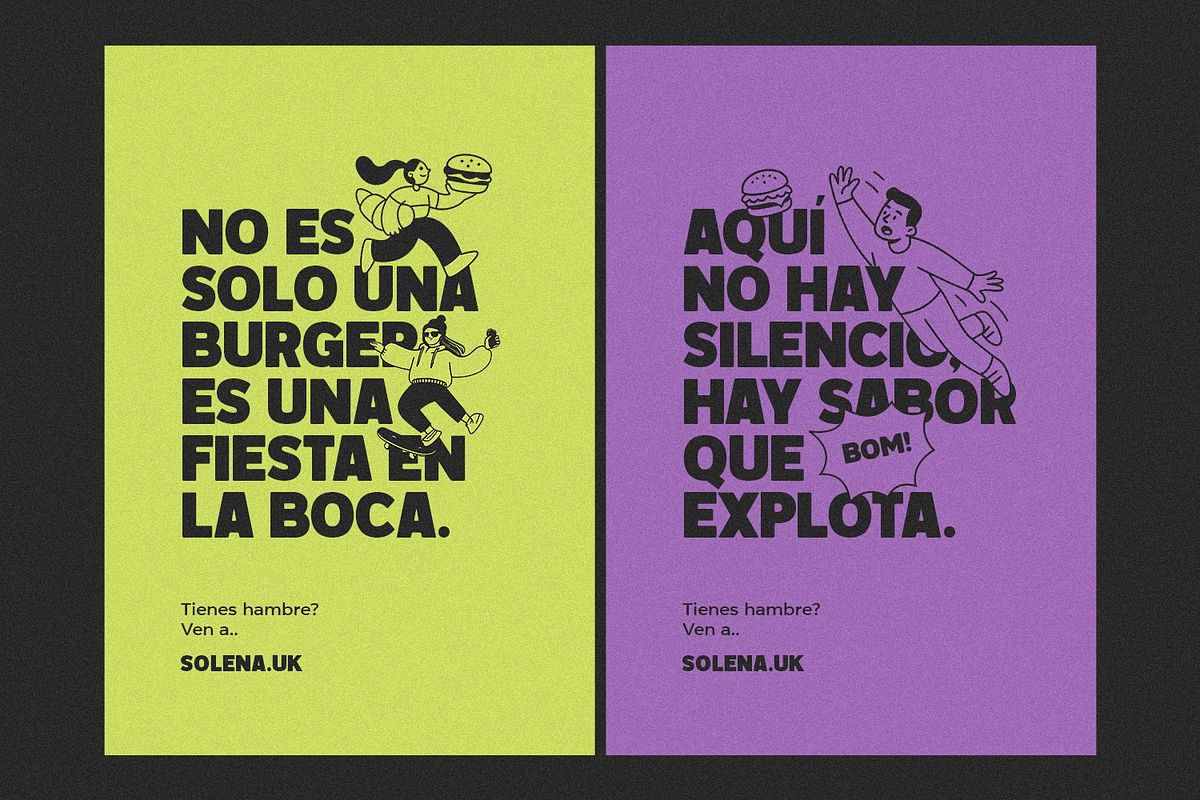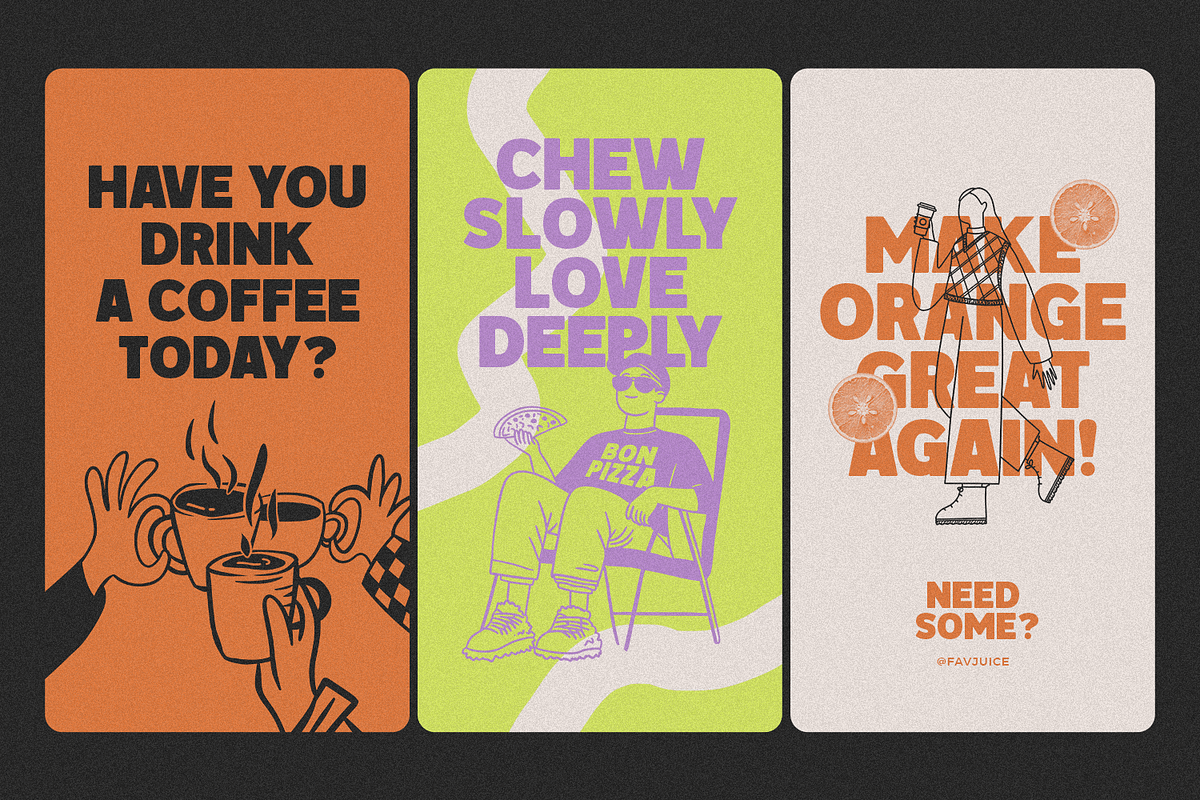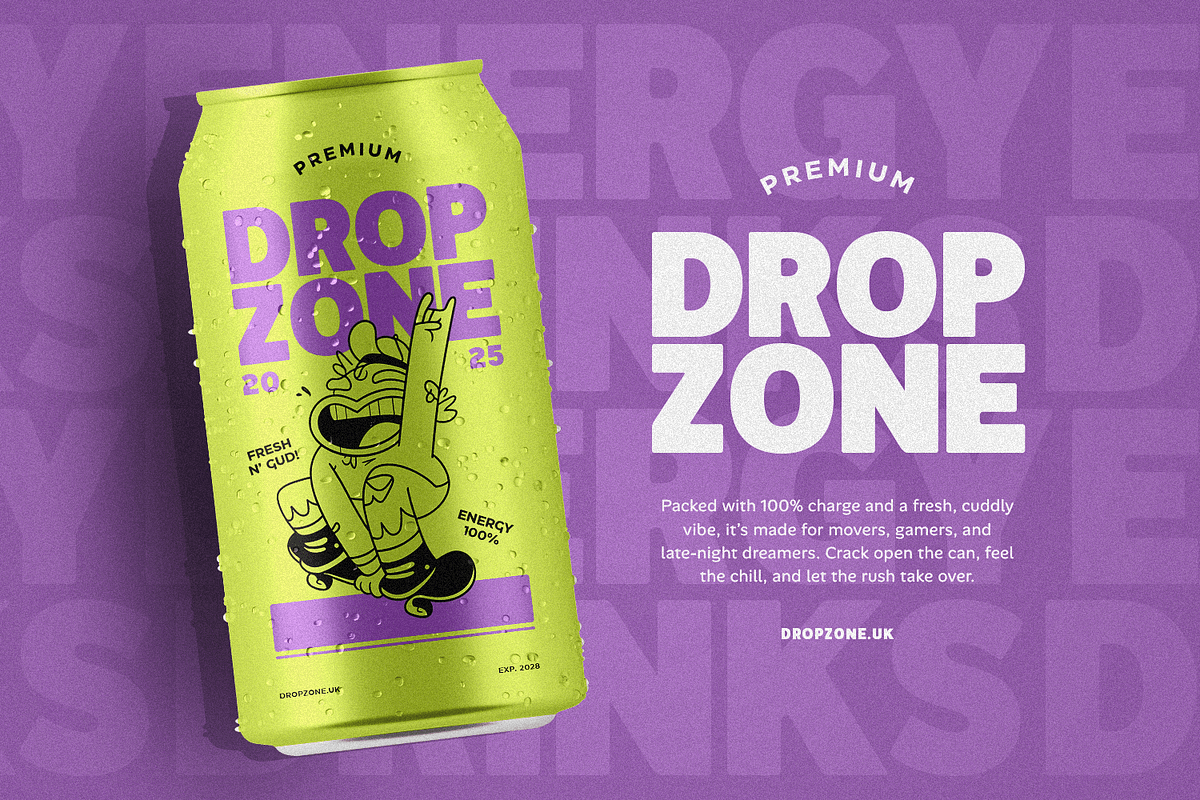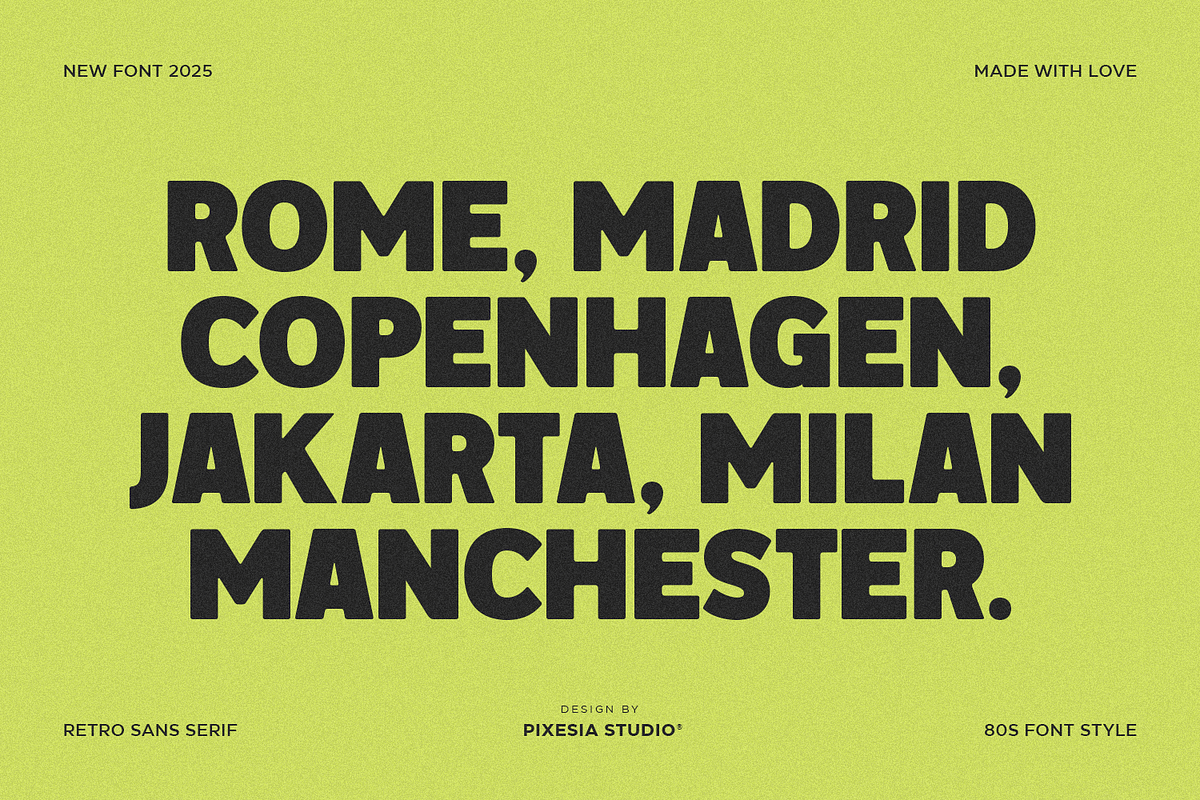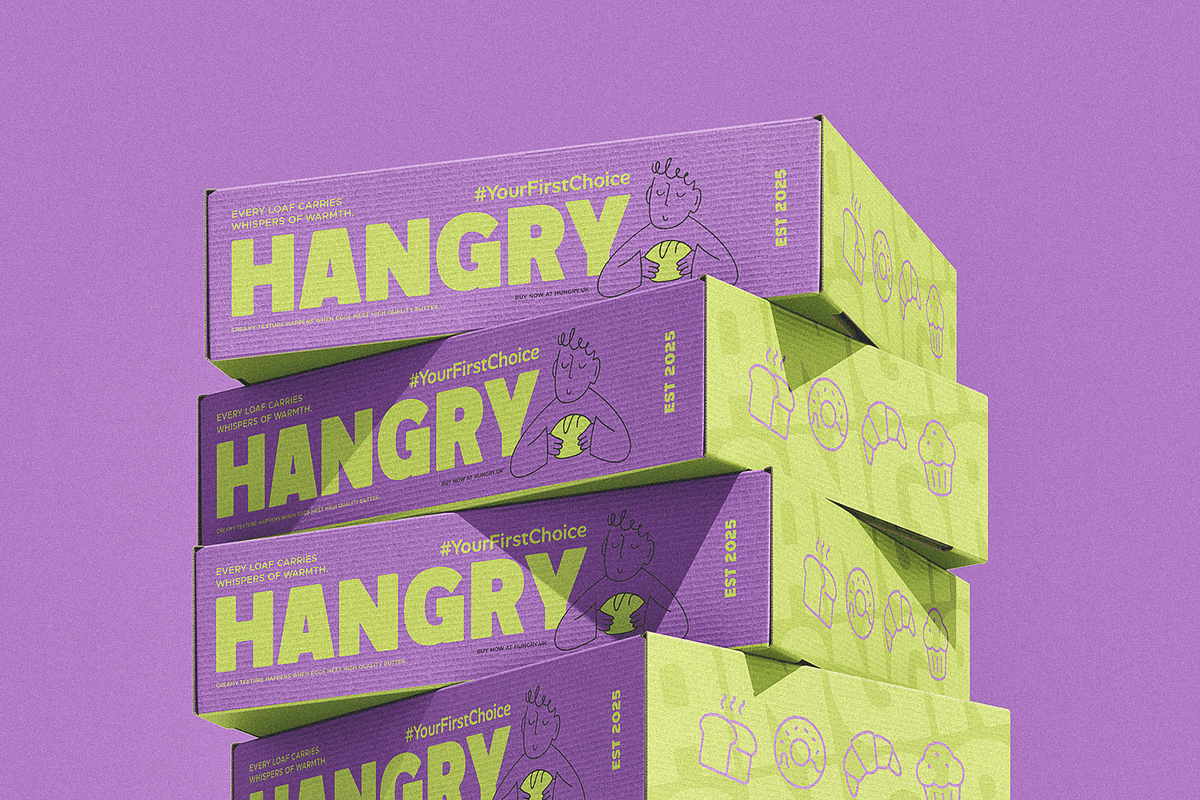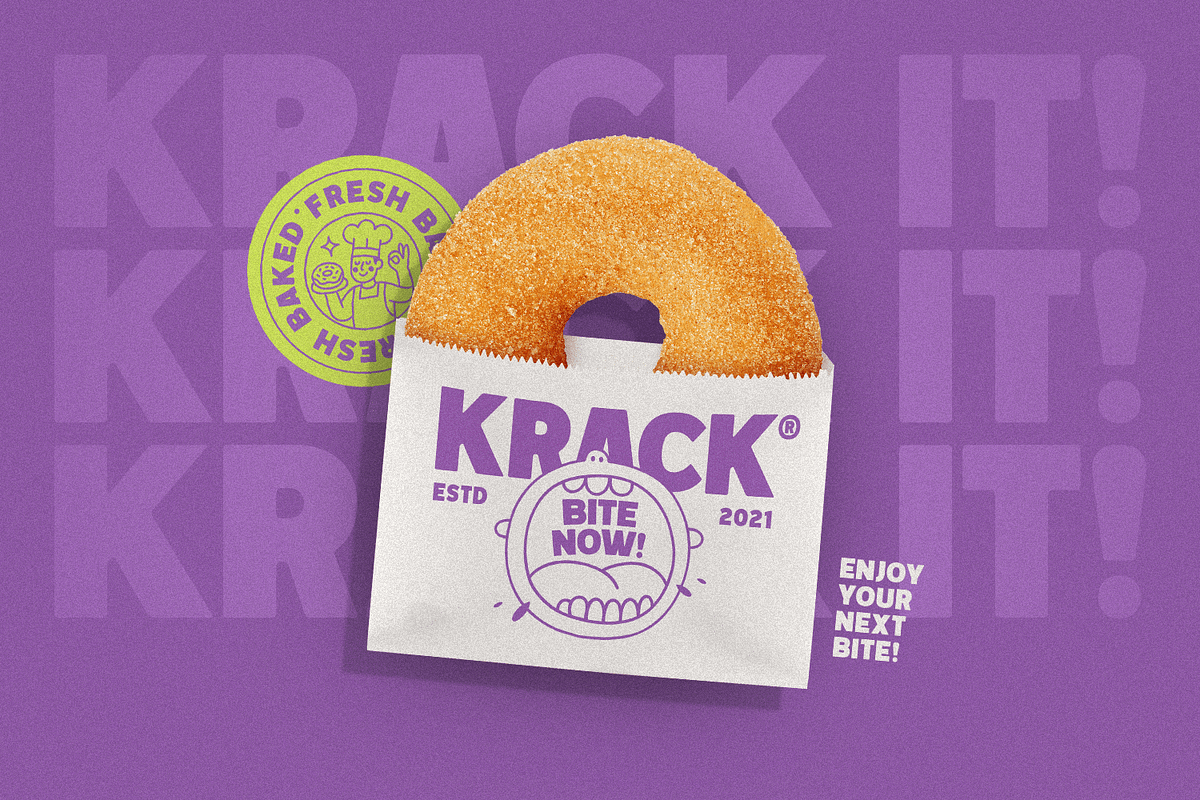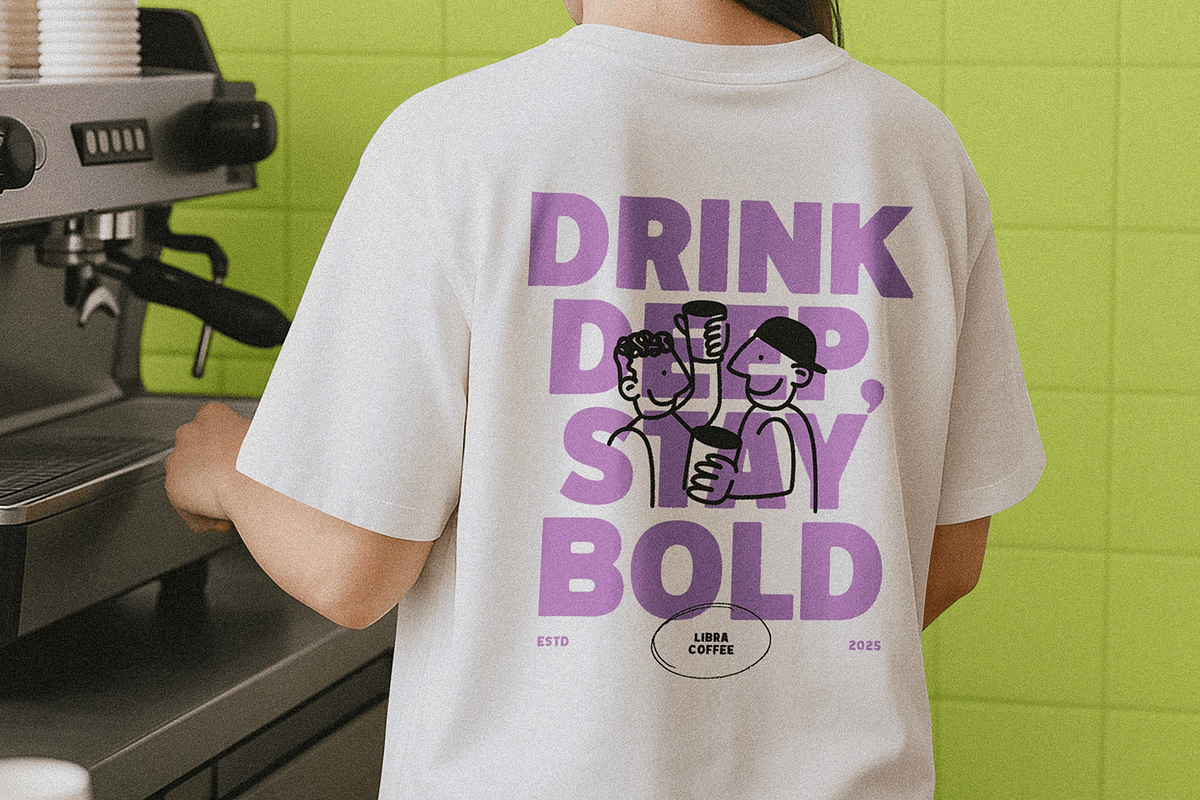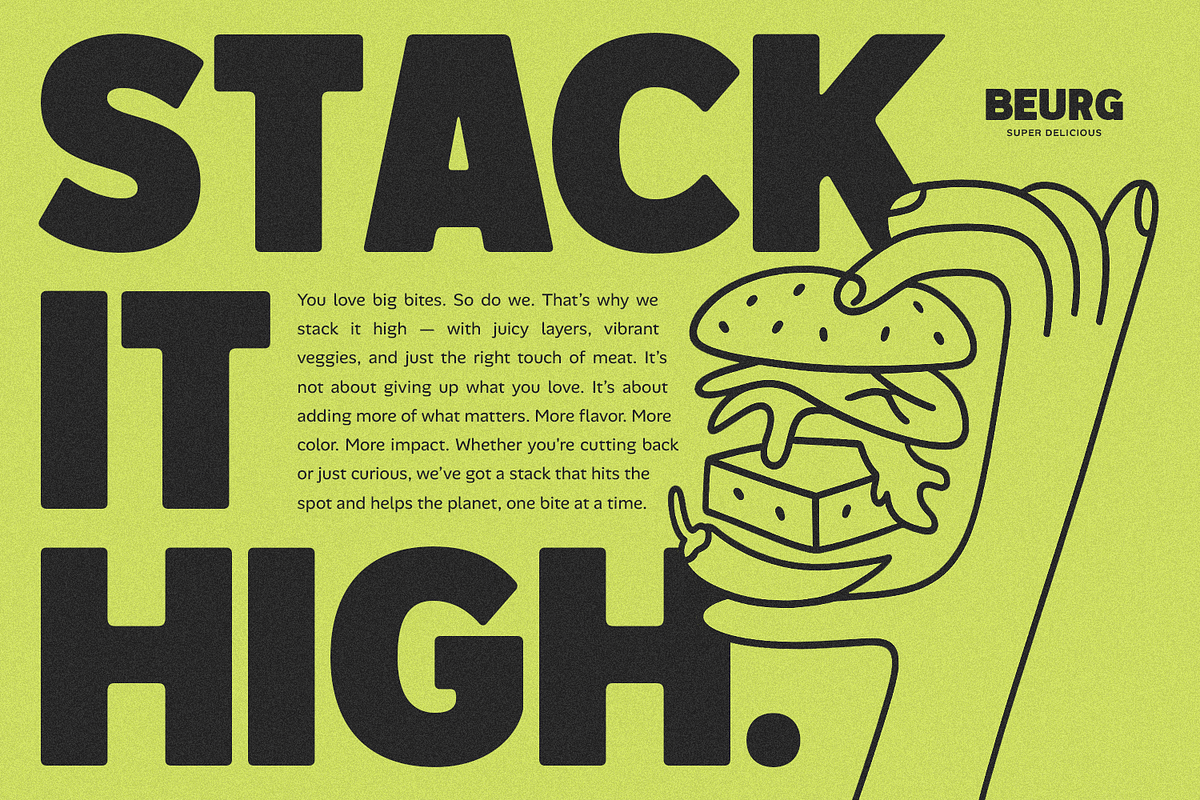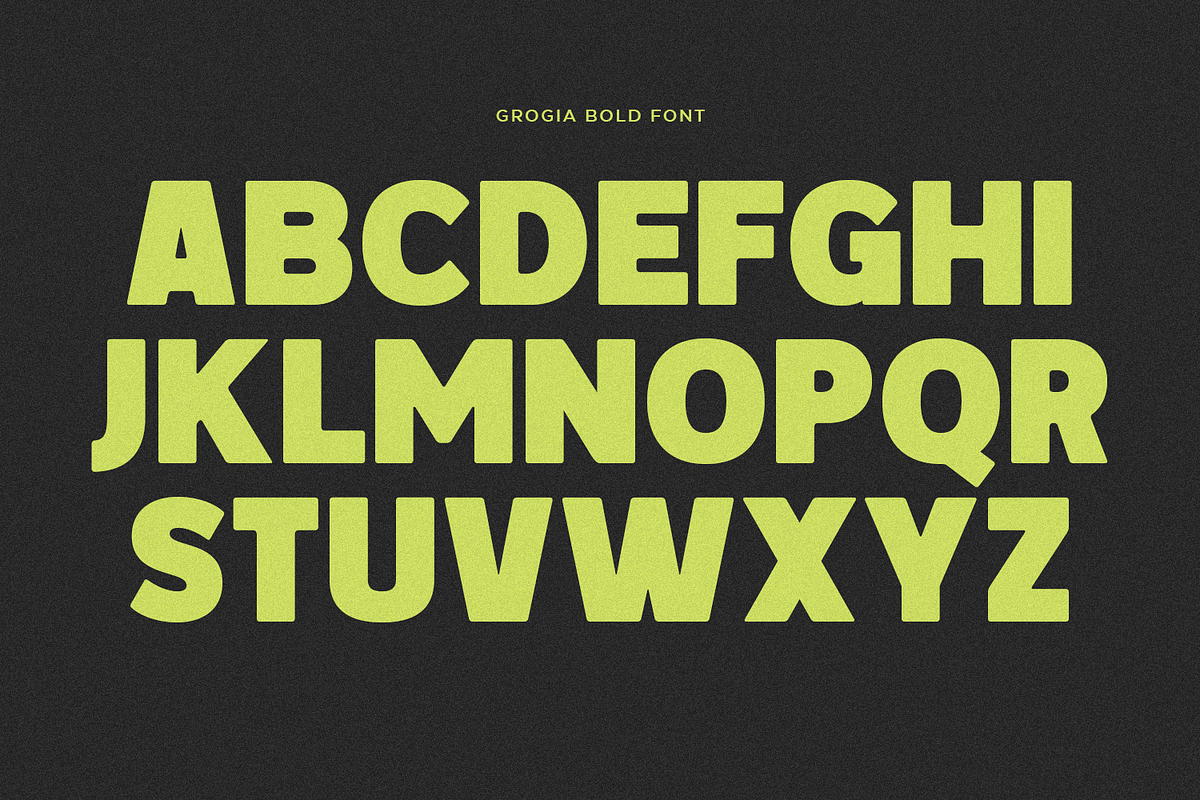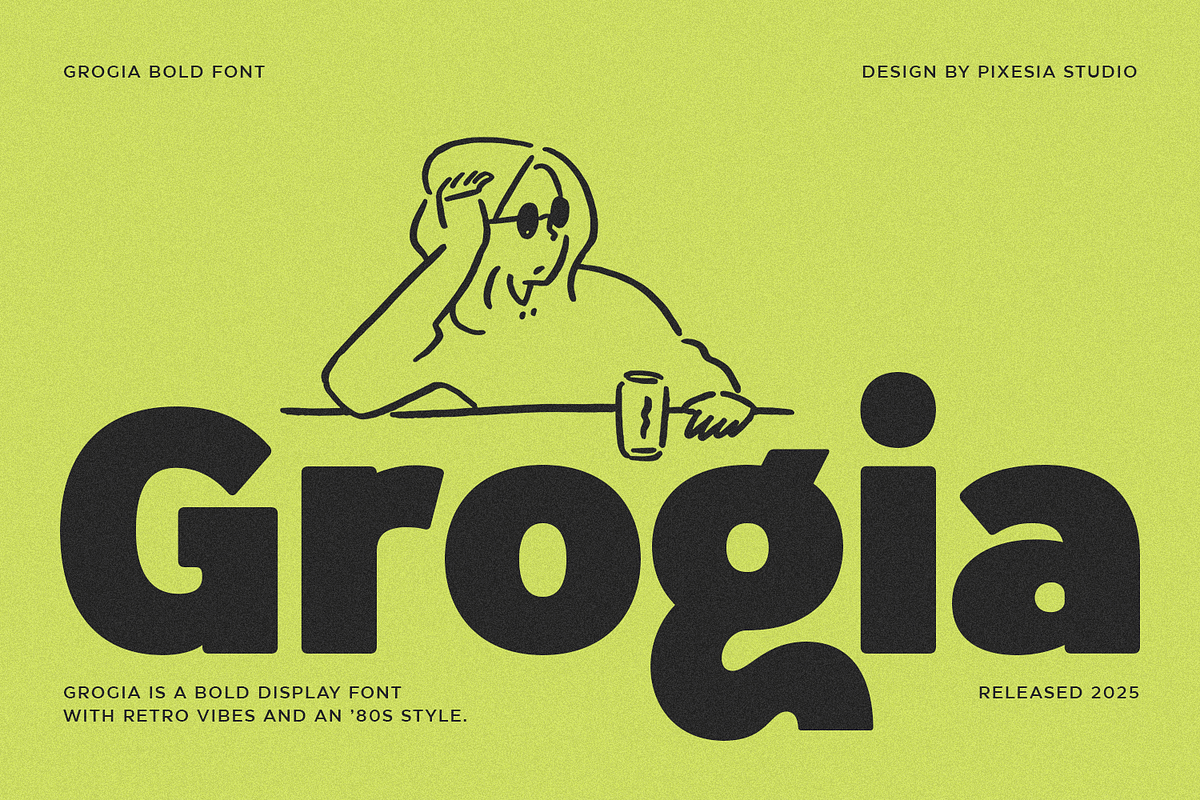
Grogia - Bold Display Font
Introducing Grogia - Bold Display Font
Grogia is a bold display font inspired by retro aesthetics and the expressive charm of the 1980s. With thick letterforms, soft curves, and a smooth rhythmic flow, Grogia captures the nostalgic feel of vintage print while staying clean, modern, and highly legible. Its confident character makes every title stand out with personality and retro attitude.
Perfect for high-end branding, posters, packaging, editorial layouts, album artwork, advertisement, eye-catching headlines,and bold visual identities, Grogia blends nostalgic retro style with contemporary design appeal. Whether you're crafting a groovy logo, a standout headline, or a modern-vintage campaign, Grogia delivers high impact with effortless style.
- Multilingual Support including Afrikaans, Albanian, Basque, Catalan, Danish, Dutch, English, Estonian, Faroese, Filipino, Finnish, French, Galician, German, Icelandic, Indonesian, Irish, Italian, Malay, Norwegian Bokmål, Portuguese, Spanish, Swahili, Swedish, Zulu